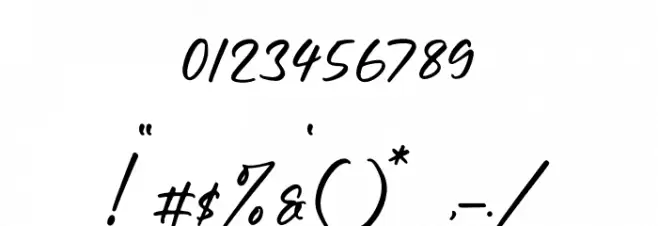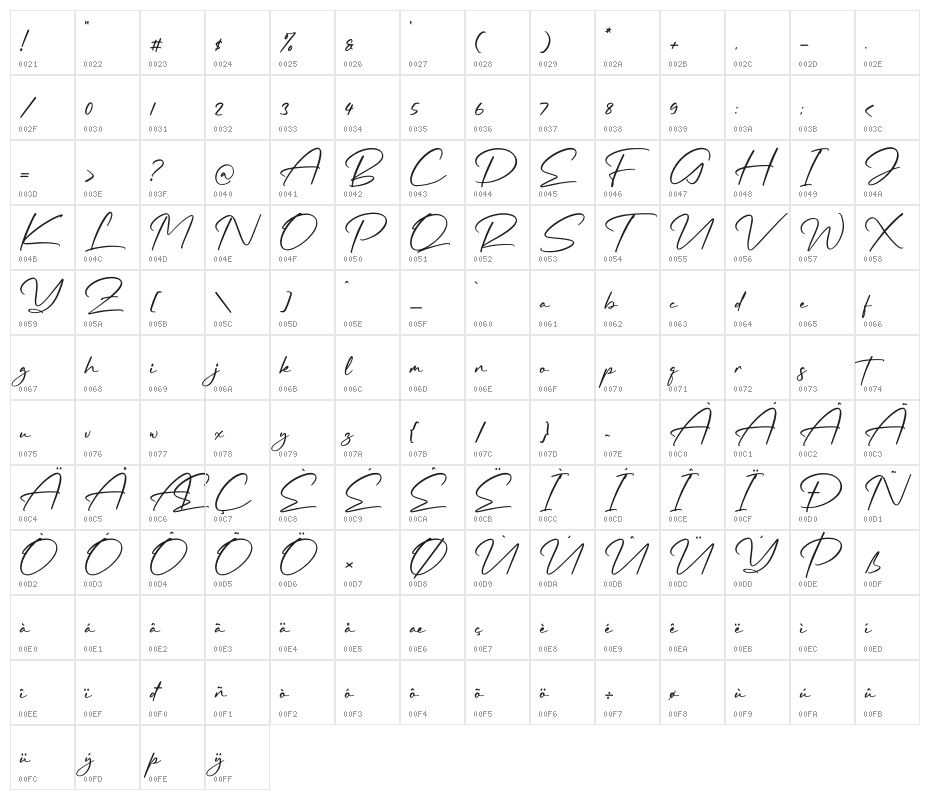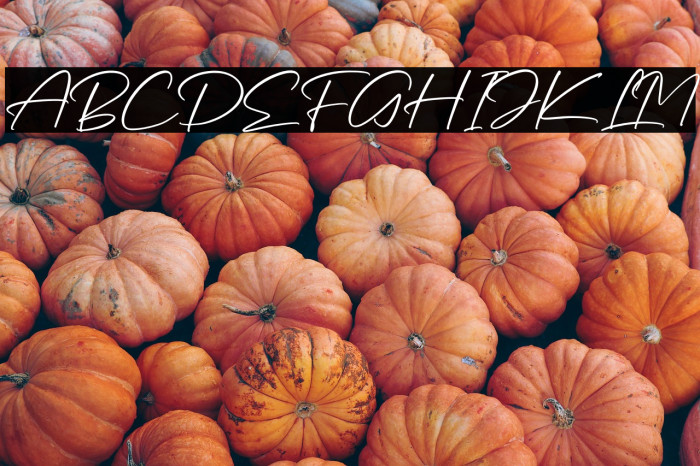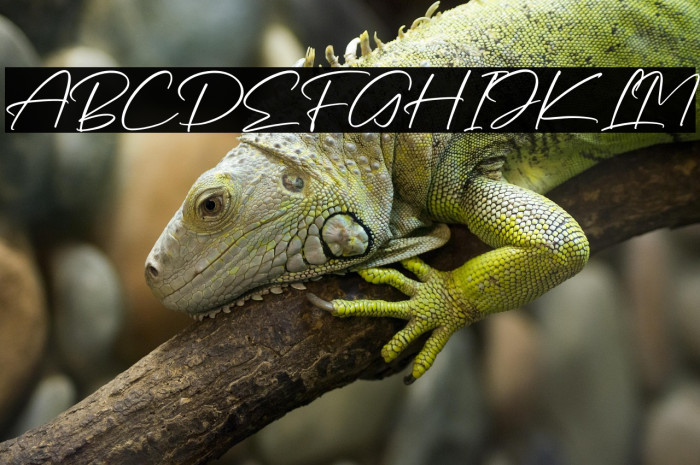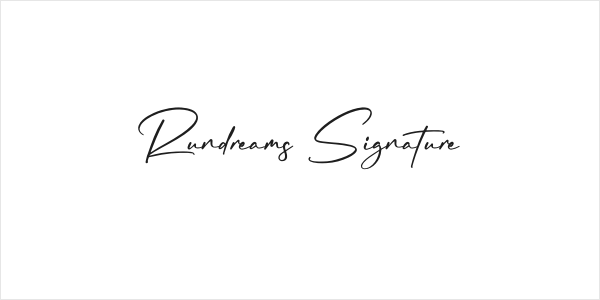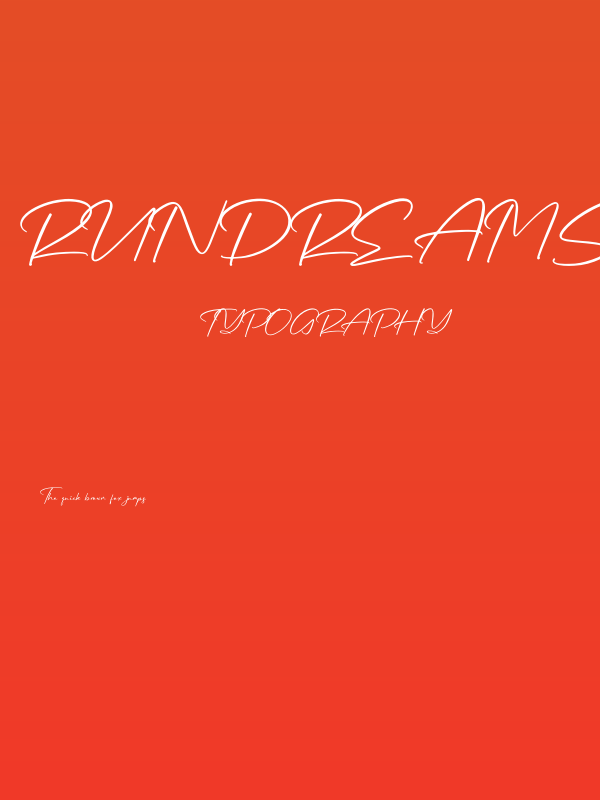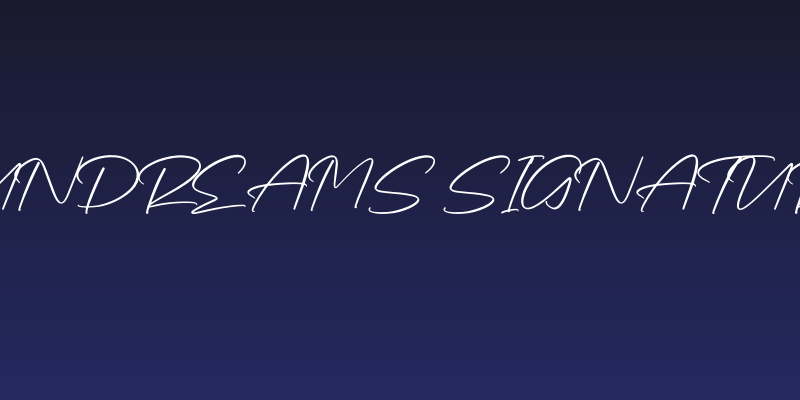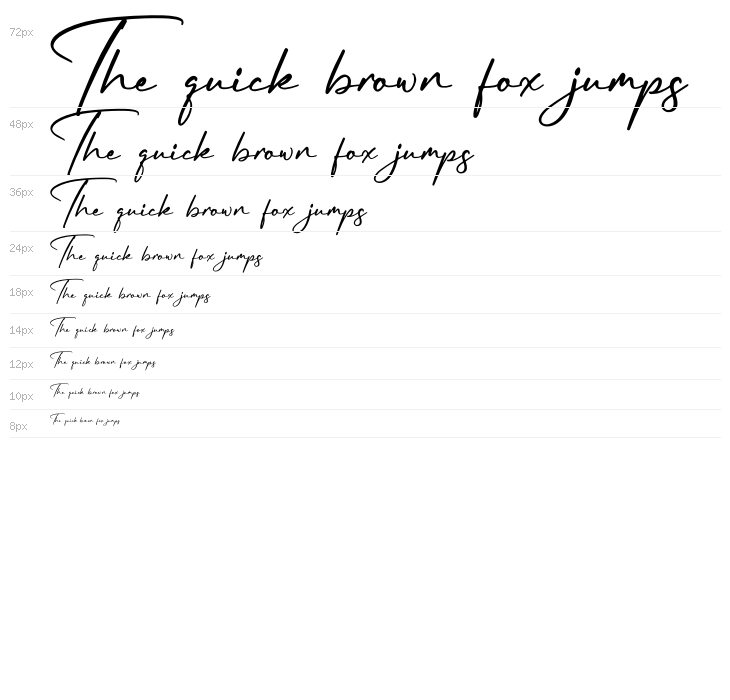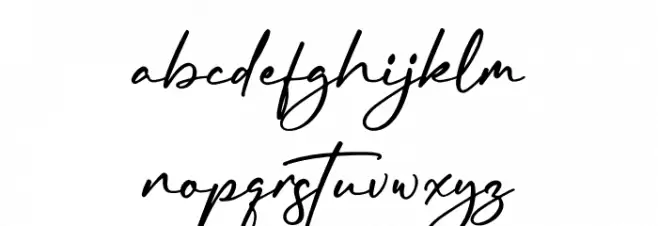
Rundreams Signature Font
Rundreams Signature Description
This font exudes a sophisticated and elegant handwritten style, characterized by its fluid and connected letterforms. The uppercase letters are tall and slender, with graceful curves that give a sense of movement and flow. The lowercase letters maintain a consistent style, with smooth transitions and a slightly more compact form. Numbers and special characters are designed to complement the overall aesthetic, maintaining the same flowing and cursive style. The font's delicate strokes and artistic flair make it ideal for projects that require a personal touch.
Overall StyleElegant
Use CaseLogos, Invitations, Personal Branding
Proposed ProjectsIdeal for wedding invitations, personal branding, greeting cards, and elegant stationery.